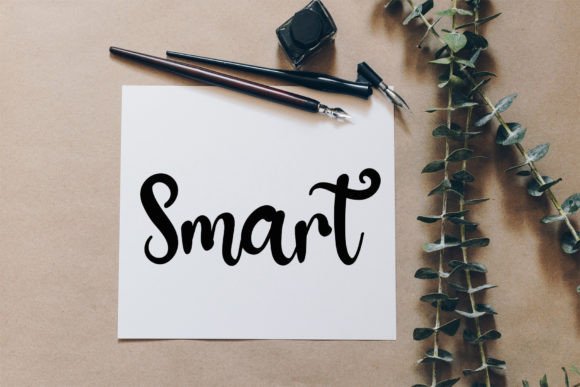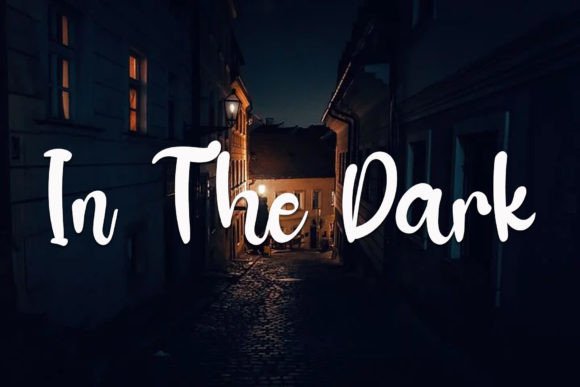
Discover the Elegance of Bright Font: Elevate Your Designs with a Timeless Handwritten Style
Are you on the hunt for a font that adds a touch of elegance and sophistication to your designs? Look no further than Bright Font, a stunning handwritten font that is sure to capture your heart. With its unique blend of classic charm and modern flair, Bright Font is the perfect choice for designers and crafters looking to create spectacular designs that stand out from the crowd.
The Beauty of Bright Font
Bright Font is a neat and beautiful handwritten font that boasts an elegant touch, making it ideal for a wide range of projects. Whether you’re working on a logo, branding materials, social media graphics, or even a website, Bright Font is sure to bring a level of sophistication and refinement to your designs. Its incredibly distinct and timeless style is sure to fall in love with, and its versatility makes it perfect for a variety of applications.
What Makes Bright Font So Special?
So, what sets Bright Font apart from other fonts on the market? Here are just a few of its standout features:
- Elegant and Refined: Bright Font features a beautiful, cursive script that exudes elegance and refinement. Its smooth lines and flowing curves make it perfect for creating sophisticated designs that command attention.
- Unique and Distinctive: With its unique blend of classic and modern elements, Bright Font is sure to stand out from the crowd. Its distinctive style makes it perfect for designers looking to create designs that are truly one-of-a-kind.
- Highly Versatile: Bright Font is incredibly versatile, making it perfect for a wide range of projects. Whether you’re working on a logo, brochure, or website, Bright Font is sure to adapt seamlessly to your design needs.
- Easy to Read: Despite its elegant and refined style, Bright Font is incredibly easy to read, making it perfect for body text and other applications where legibility is key.
Bright Font is a dream come true for designers and crafters looking to elevate their designs with a touch of elegance and sophistication. Whether you’re working on a personal project or a client’s brief, Bright Font is sure to help you create stunning designs that exceed expectations.
From stationery and branding materials to social media graphics and websites, Bright Font is the perfect choice for any project that requires a level of refinement and sophistication. Its timeless style ensures that your designs will remain fresh and relevant for years to come, making it a valuable addition to any design library.
Tips for Using Bright Font
To get the most out of Bright Font, here are a few tips to keep in mind:
- Pair it with a Sans Serif: Bright Font pairs beautifully with sans serif fonts, which provide a clean and modern contrast to its elegant script.
- Use it as a Headline Font: Bright Font is perfect for headlines and titles, where its elegant style can really shine.
- Experiment with Colors: Bright Font looks stunning in a range of colors, from bold and bright to soft and pastel.
In conclusion, Bright Font is a truly exceptional handwritten font that is sure to capture the hearts of designers and crafters everywhere. With its elegant and refined style, unique and distinctive character, and high level of versatility, Bright Font is the perfect choice for any project that requires a touch of sophistication and elegance.